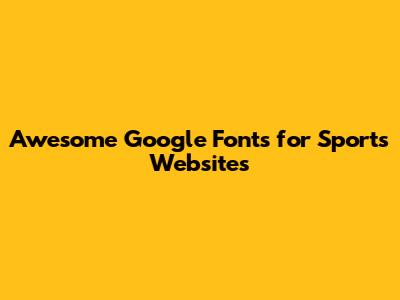
What’s up, sports fans and web design gurus! Today, we’re diving headfirst into the electrifying world of Google Fonts for sports websites. You know, the kind of fonts that make your site pop, scream energy, and get your audience pumped up? Choosing the right typeface can seriously elevate your sports brand, making it look professional, dynamic, and totally unforgettable. We’re talking about fonts that convey speed, strength, and a winning spirit, guys. So, buckle up because we're about to explore some killer Google Fonts that will have your sports website hitting it out of the park!
Why Typography Matters for Sports Brands
Alright, let’s get real for a sec. Why should you even care about fonts when you’re building a killer sports website? It’s simple, really. Typography is the voice of your brand. It's not just about looking pretty; it’s about communicating a feeling, an attitude, and a level of professionalism. For sports, this means conveying power, agility, excitement, and maybe even a bit of grit. Imagine seeing a major league baseball team’s logo in a flimsy, delicate font – it just wouldn’t feel right, would it? The same applies to your website. The fonts you choose are the first impression many people will have of your sports club, team, or news site. They influence how users perceive your content and your brand’s personality. Are you a high-octane action sports brand, or a more traditional, established league? Your font choices will tell that story loud and clear. Choosing the right Google Fonts can mean the difference between a site that feels stale and one that feels alive and ready to compete. It impacts readability, user experience, and ultimately, how memorable your brand is. So, yeah, it’s a pretty big deal, folks!
Fonts Conveying Speed and Agility
When we talk about sports, one of the first things that comes to mind is speed and agility. Think about a sprinter exploding off the starting blocks or a basketball player making a lightning-fast crossover. You want fonts that capture that same sense of forward momentum and sharp movement. These fonts often feature sharp angles, condensed letterforms, and a generally sleek, modern aesthetic. They’re designed to be dynamic, drawing the eye and creating a feeling of urgency and excitement. Google Fonts for sports that excel in this category are perfect for action-packed sports, racing, or any brand that wants to project an image of quickness and responsiveness. They’re great for headlines, call-to-action buttons, and any element where you want to grab attention immediately. The key is to find a balance; you want the font to feel fast without becoming illegible. We’re looking for that sweet spot where a font looks powerful and energetic but is still easy to read, even at smaller sizes or on mobile devices. It’s about creating a visual rhythm that echoes the dynamism of the sports themselves. So, if your brand is all about breaking records and pushing limits, these speedy fonts are your go-to.
Fonts Exuding Strength and Power
On the flip side, many sports are about raw strength and power. Think about a linebacker tackling an opponent, a weightlifter breaking a record, or a rugby scrum. These moments demand fonts that feel solid, impactful, and commanding. These types of fonts often have bolder weights, wider letterforms, and a more stable, grounded appearance. They convey a sense of authority, reliability, and sheer force. Google Fonts for sports that embody strength are fantastic for established leagues, strongman competitions, or any brand that wants to project an image of dominance and unwavering resilience. They create a visual anchor, making your headlines feel substantial and your brand message irrefutable. These fonts are typically highly legible, making them suitable for everything from team names to important announcements. They don’t just sit on the page; they command attention. When you want your sports brand to feel like an unmovable object, these powerful fonts are your best bet. They give your website a robust foundation, ensuring your content feels as strong and dependable as the athletes you’re celebrating. It’s about creating a visual representation of athletic prowess that resonates with the raw energy of the sport itself.
Top Google Fonts for Sports Websites
Now, let’s get down to the nitty-gritty and look at some actual Google Fonts that are absolute game-changers for sports websites. We’ve handpicked a selection that covers different vibes, from sleek and fast to bold and powerful, ensuring you’ll find the perfect fit for your brand. Remember, guys, the best font often depends on the specific sport and the overall aesthetic you’re going for. Don’t be afraid to mix and match (responsibly, of course!) to create a unique look. We’re talking about fonts that are not only stylish but also highly functional, meaning they look great and are easy to read across all devices. Getting this right is crucial for keeping your visitors engaged and making sure your message hits home. So, let’s dive into some of the top contenders that consistently perform well in the sports niche.
1. Oswald: The Condensed Powerhouse
First up on our list is Oswald. This font is a true workhorse when it comes to sports branding. Oswald is a condensed sans-serif that has a fantastic, tall and narrow profile. This makes it incredibly space-efficient, which is a huge win for web design, especially for headlines and titles where you want maximum impact without taking up too much real estate. Its geometric forms give it a modern and clean feel, while its slightly wide ‘o’ and ‘a’ add a touch of character. Oswald comes in a variety of weights, from Light to Bold, allowing for great flexibility. We love using Oswald for its ability to convey a sense of urgency and strength simultaneously. It’s bold enough to feel powerful, yet condensed enough to feel fast and dynamic. Think of it as the perfect font for a football team’s name or a fast-paced sports news website. It’s highly legible, even in its bolder weights, ensuring your message gets across clearly. Using Oswald can give your sports site an instant professional and energetic edge. It’s a crowd-pleaser for a reason, guys, consistently delivering a strong visual punch. It’s the kind of font that makes you sit up and take notice, just like a game-winning touchdown!
2. Montserrat: The Versatile All-Star
Next, we’ve got Montserrat. This geometric sans-serif is incredibly versatile and has become a staple in modern web design, and for good reason. Montserrat offers a beautiful balance between classic style and contemporary flair. It’s friendly, approachable, and highly readable, making it a fantastic choice for almost any element on your sports website, from body text to navigation. It has a clean, geometric structure that feels solid and reliable, yet its slightly rounded terminals give it a touch of warmth. Montserrat is available in a wide range of weights, from Thin to Black, providing immense flexibility for creating typographic hierarchy. For sports sites, Montserrat works wonders because it can adapt to various tones. Use its heavier weights for impactful headlines that convey strength, or its lighter weights for more subtle, informative text. It’s particularly great for brands that want to feel both strong and accessible, like community sports leagues or fitness centers. When you need a font that’s a true all-rounder, Montserrat is your MVP. It’s dependable, looks great, and ensures your content is easily digestible for everyone. It brings a sense of order and clarity, which is essential when you're dealing with a lot of information or trying to convey complex strategies.
3. Bebas Neue: The Bold Statement Maker
If you’re looking for a font that screams boldness and impact, then Bebas Neue is your guy. This is another condensed sans-serif, but it’s even more distinctive than Oswald. Bebas Neue is all caps and has a super tall, condensed, and clean aesthetic. It’s designed to make a statement and grab attention immediately. It’s perfect for headlines, titles, and any text where you want maximum visual weight and emphasis. Bebas Neue evokes a sense of sportiness and modern energy, making it ideal for sports brands that want to project a strong, confident image. While it's primarily designed for display purposes, its clean lines ensure decent readability for short bursts of text. You'll often see it used for team names, event titles, or prominent call-to-action buttons that need to stand out. Using Bebas Neue is like unleashing a powerful play – it’s designed to be noticed and to leave a lasting impression. It’s the go-to choice when you want your brand to feel loud, proud, and undeniably athletic. Just be mindful of its all-caps nature and consider pairing it with a more readable font for longer text sections. It’s the kind of font that doesn’t mess around; it’s here to win!
4. Anton: High-Energy Impact
Let's talk about Anton. This font is pure, unadulterated impact. Anton is a bold, condensed sans-serif that’s designed to grab attention and hold it. It’s got a strong, sturdy feel that makes it perfect for sports where power and dominance are key. Think football, rugby, or even extreme sports. Its thick strokes and condensed width give it a commanding presence, making headlines look absolutely massive and unmissable. Anton is fantastic for conveying excitement and intensity. It’s the kind of font that feels like it’s shouting from the rooftops, perfect for announcing major events or emphasizing key team statistics. Its design is clean and geometric, which helps maintain readability even at large sizes. When you want your sports website to feel energetic, powerful, and absolutely unyielding, Anton is a top-tier choice. It’s a font that doesn’t shy away from making a statement, projecting an image of strength and determination that aligns perfectly with the spirit of competition. It’s a real crowd-pleaser for sports branding, adding that extra layer of adrenaline to your visual design.
5. Poppins: The Friendly Competitor
Moving on, we have Poppins. This geometric sans-serif is a fantastic option if you want a font that feels modern, friendly, and highly versatile. Poppins offers a clean, balanced aesthetic with near-perfect circular letterforms. It’s incredibly legible and works wonderfully for both headings and body text, making it a great all-around choice for sports websites that aim for a welcoming yet professional feel. Its geometric construction gives it a sense of order and precision, while its slightly wider stance makes it feel grounded and stable. Poppins is available in a wide spectrum of weights, from Thin to Black, giving you loads of flexibility to create a robust typographic system. For sports, it’s particularly good for brands that want to balance athletic performance with community engagement or accessibility. Think of youth sports organizations, fitness apps, or even sports lifestyle brands. Using Poppins can give your website a clean, contemporary look that’s both energetic and approachable. It's the font equivalent of a team that plays hard but always shows good sportsmanship – strong, reliable, and universally liked.